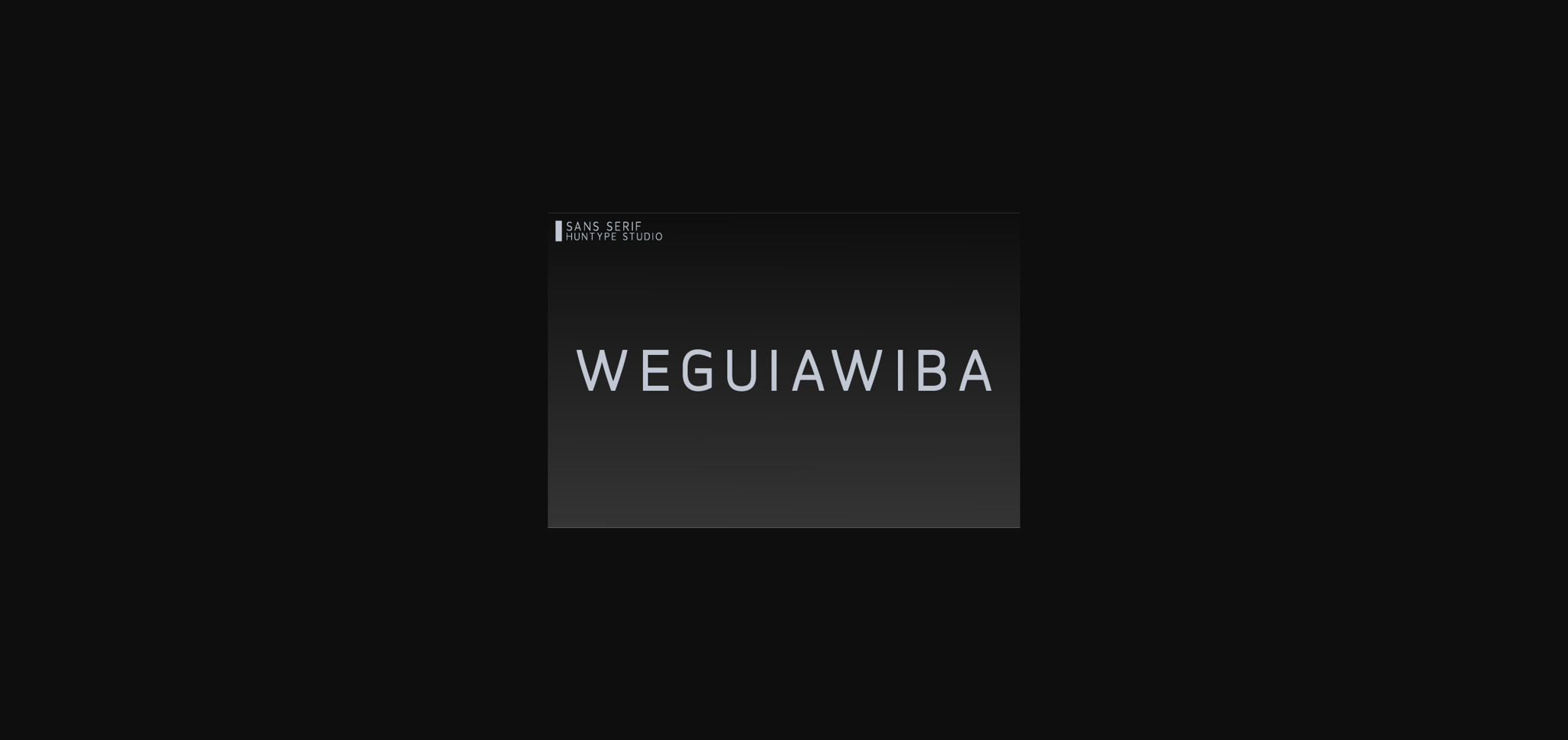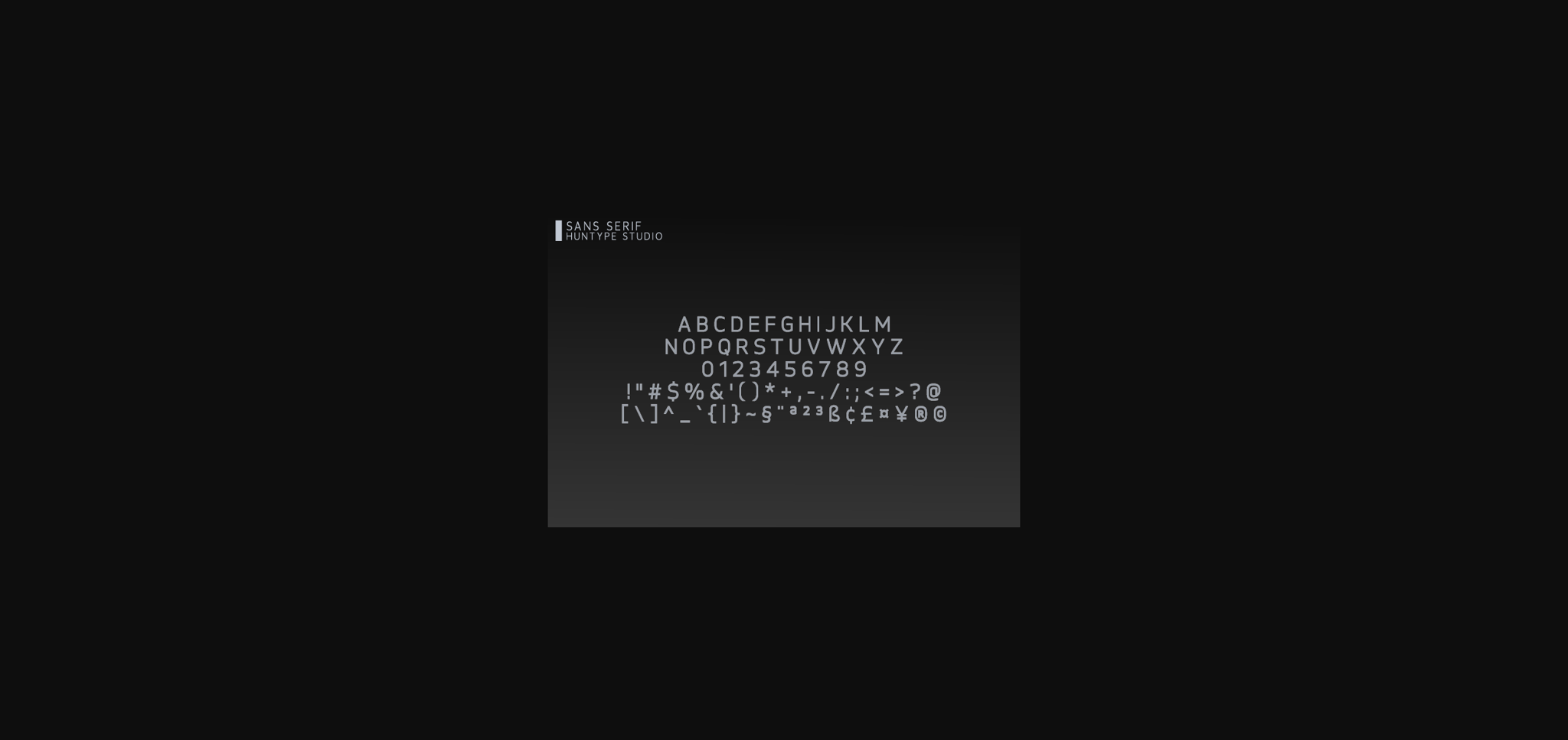
About Weguiawiba Font
Weguiawiba is an all caps geometric sans serif typeface. Weguiawiba will look outstanding in any context, whether it’s being used on busy backgrounds or as a standalone headline!